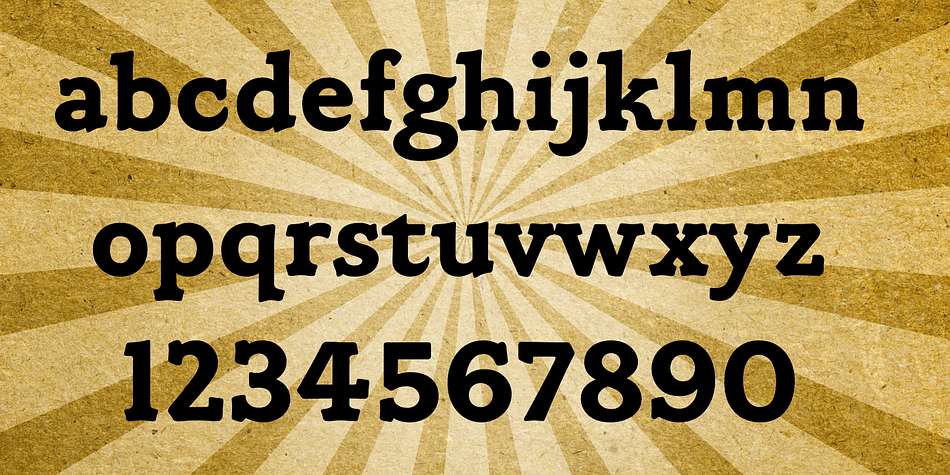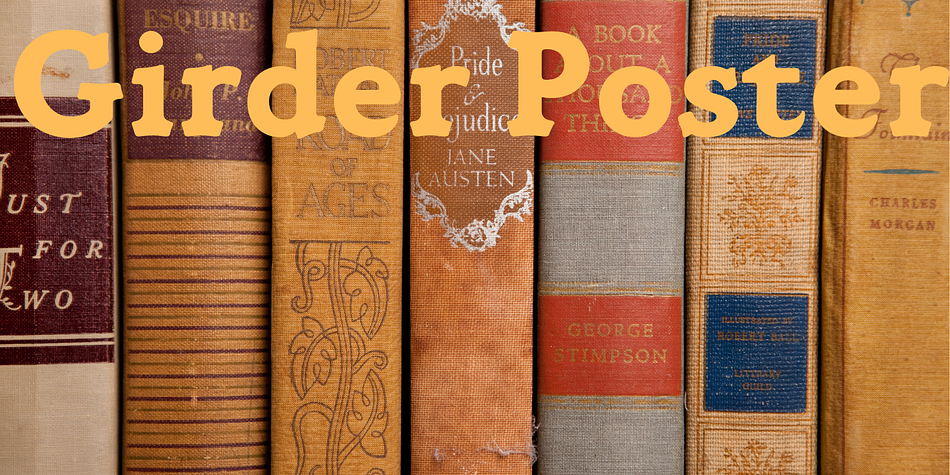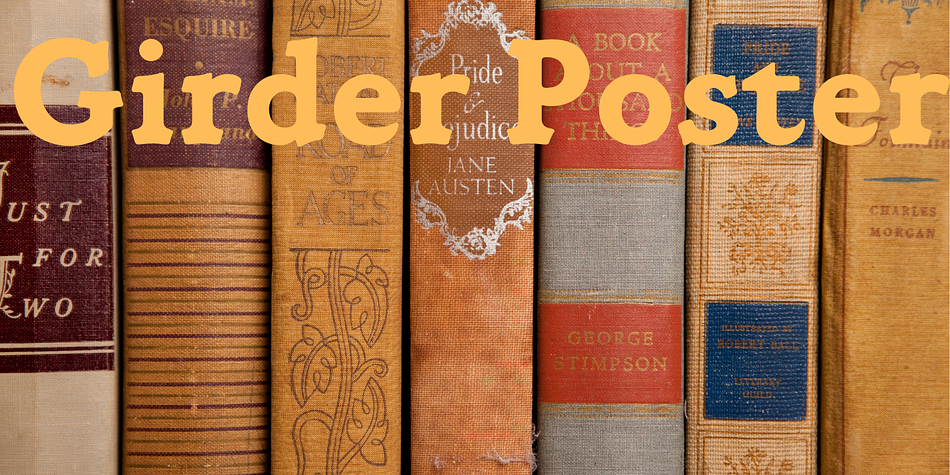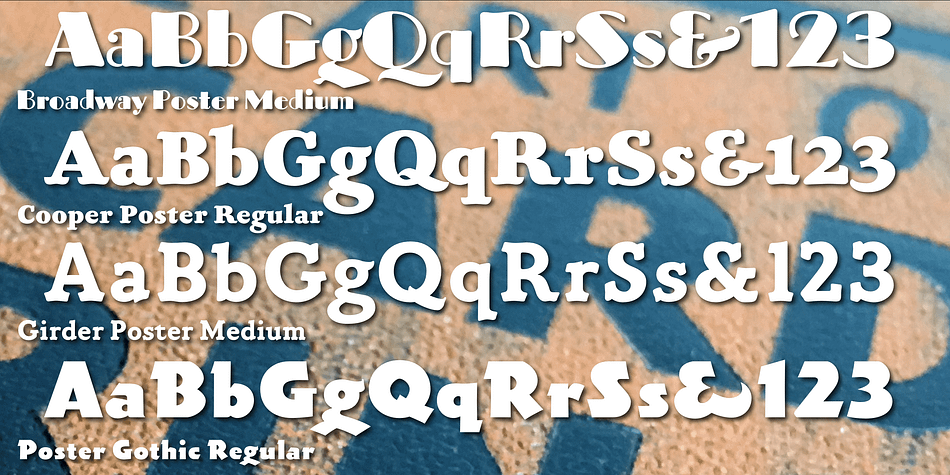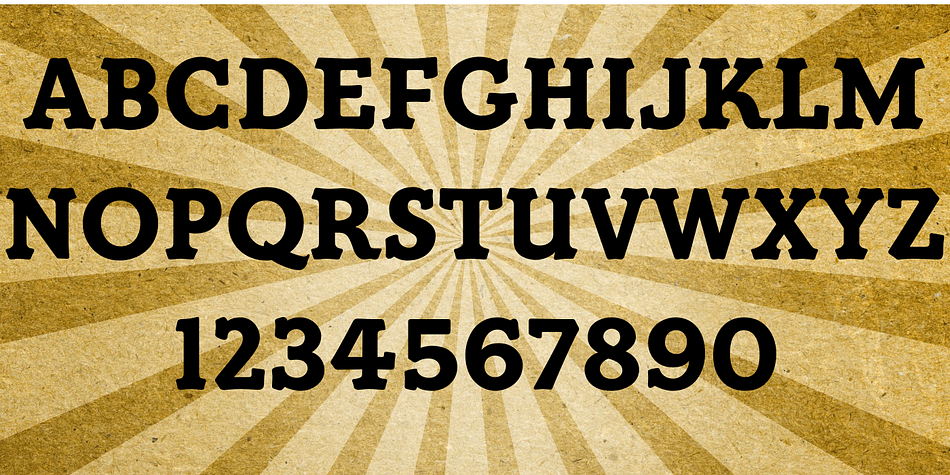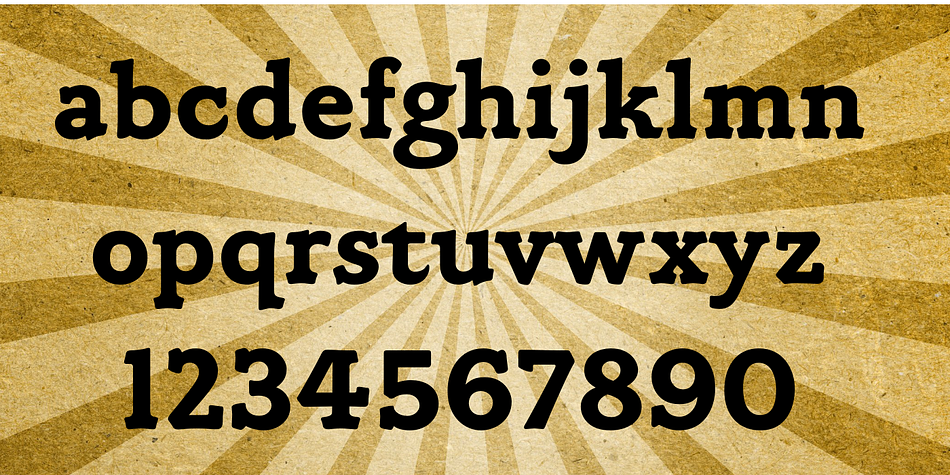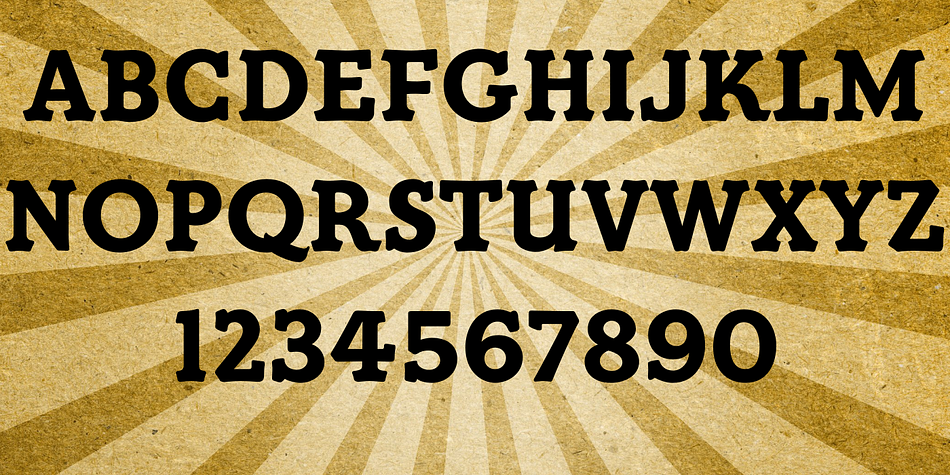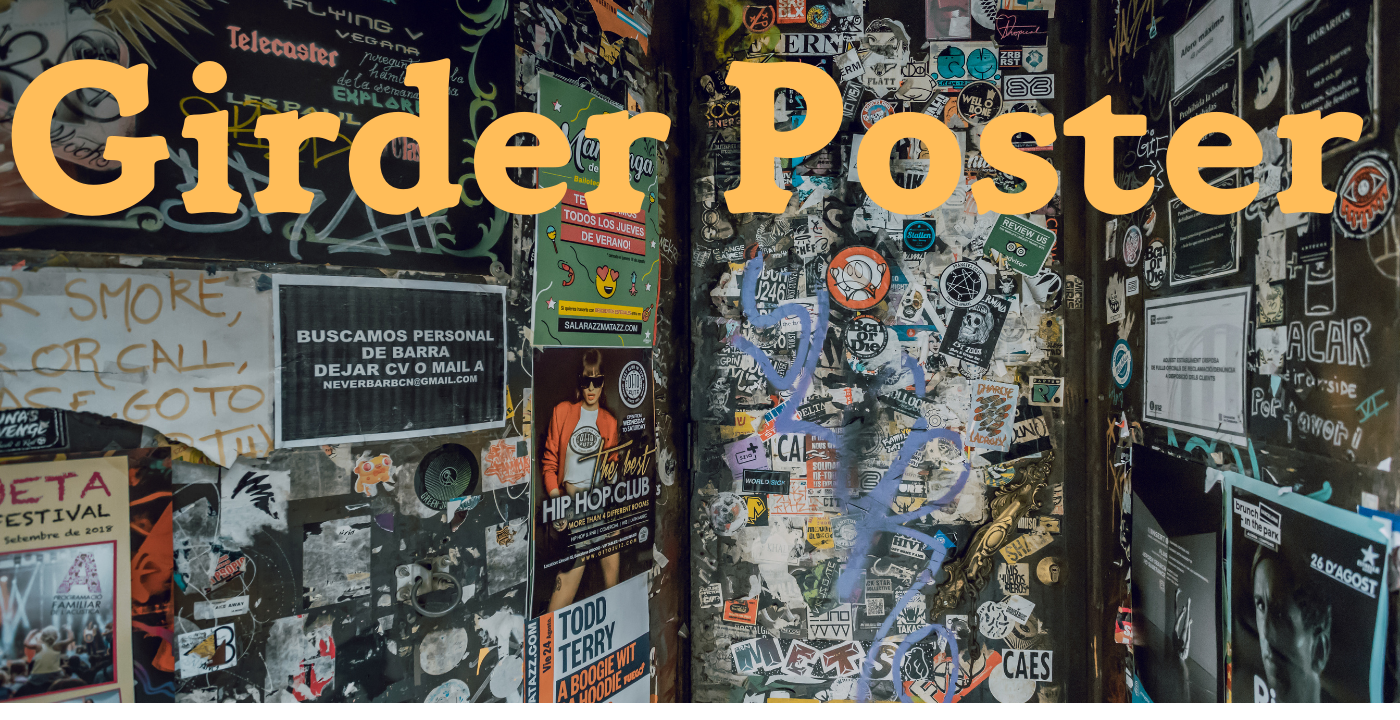
Girder Poster
Girder Poster is a slab serif font published by FontHaus.
Girder Poster, also named Spurred Gothic, was inspired by showcard lettering samples featured in the book, Commercial Art Of Show Card Lettering, published in 1945. Although similar to Cooper Bold, Girder Poster’s serifs are spurred and the design’s incepton came out of theatrical poster studios of the mid 1900’s in New York.